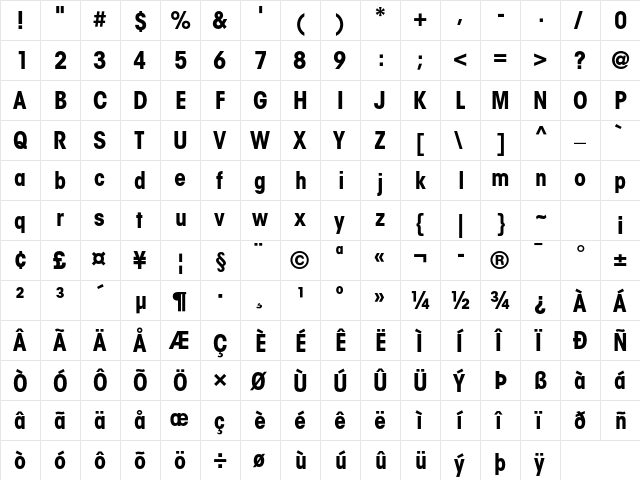
ITC Avant Garde Gothic Std Bold Condensed Font Preview
| Style | Bold Condensed |
| Designer | Herb Lubalin, Tom Carnase, Ed Benguiat, Adobe Type Staff |
Design Context for ITC Avant Garde Gothic Std Typeface
ITC Avant Garde Gothic Std has the quiet confidence of well-executed sans-serif typography: versatile, unobtrusive, and dependable at any size. The heavy weight commands attention and anchors typographic hierarchies. The condensed width makes it efficient for tight spaces without sacrificing legibility.
Well-suited to navigation labels, product packaging, and anywhere legibility at scale is essential.
Font Pairing: Use ITC Avant Garde Gothic Std for headlines alongside a lighter-weight sans or serif for body copy to establish clear visual hierarchy.
Pro Tip: Use ITC Avant Garde Gothic Std tightly set in headlines and banners — its condensed proportions make it ideal for maximum impact in minimum horizontal space.